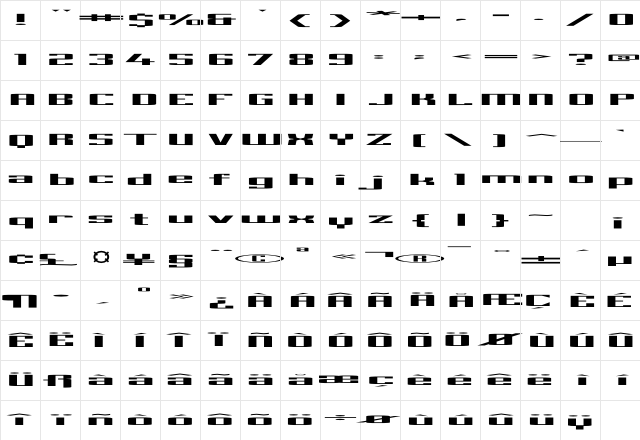
Gadzooks Sans Free Font
Gadzooks Sans
Style: Sans
Design Context for Gadzooks
Gadzooks is a composed and adaptable typeface that performs quietly and consistently across a wide range of design contexts.
Pro Tip: Use Gadzooks in both headline and body roles to test its range before committing to a single application.